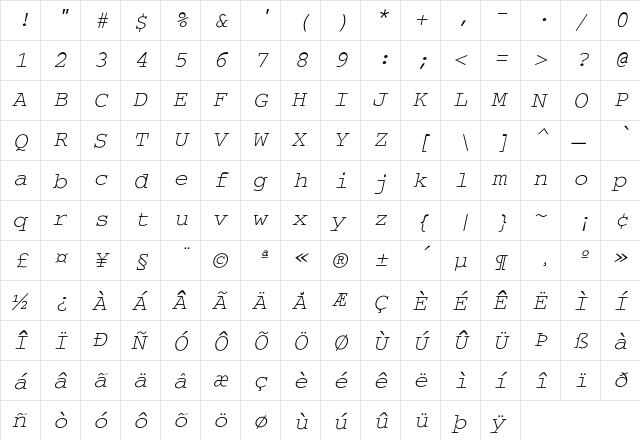
Courier-Oblique Regular Font Preview
Courier-Oblique Regular
Courier-Oblique Regular Font Details
Design Context for Courier-Oblique Typeface
Courier-Oblique uses fixed-width spacing throughout, giving it the structured, systematic character associated with coding environments and technical documentation. The slanted form adds forward momentum and visual energy.
A natural fit for code editors, technical documentation, developer-focused branding, and terminal-inspired UI.
Pro Tip: Pair Courier-Oblique with a proportional sans for UI contexts where code-style labels and regular body copy need to coexist.